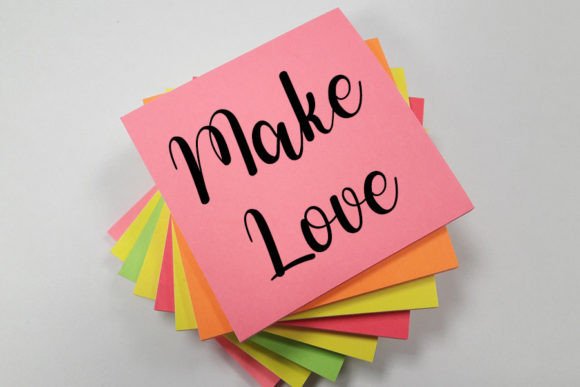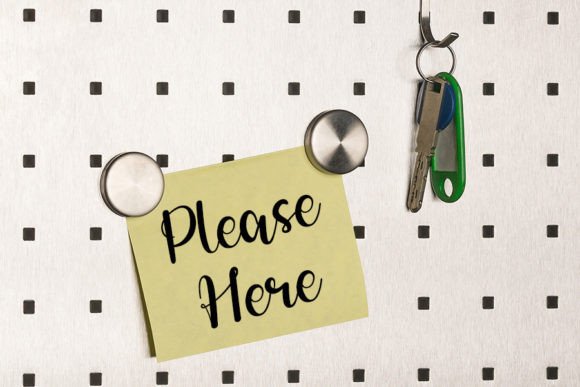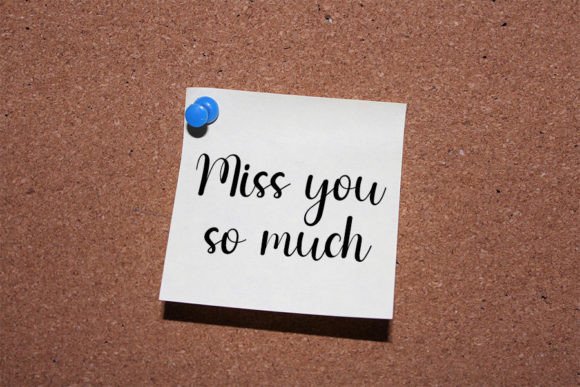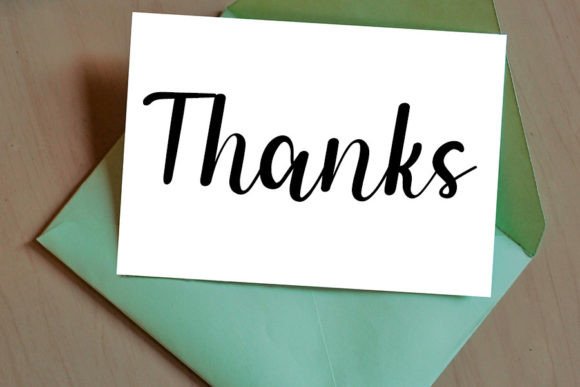
Introduction to Heart Painter Font
Have you ever stumbled upon a design element that instantly sparks your creativity and makes you want to bring your project to life? That’s exactly what happens when you lay eyes on the Heart Painter Font. This stunning handwritten font is a treasure trove of elegance and sophistication, making it the perfect addition to any creative project.
Whether you’re a seasoned designer or a beginner looking for a reliable design resource, the Heart Painter Font is a valuable asset to have in your toolkit. With its unique, high-quality design, it’s sure to elevate your projects and leave a lasting impression. Plus, with its transparent background, you can easily integrate it into any design without worrying about distractions.
Key Features of Heart Painter Font
- High-quality design resource ideal for creative projects, offering a unique and artistic touch.
- Comes with a transparent background, allowing for seamless integration into any design.
- Heart Painter Font is available in a range of sizes, from 12 to 72 points, with a high-resolution design (300 DPI) for crisp and clear display.
- This font features a beautiful, hand-painted style, perfect for adding a touch of elegance and sophistication to any design project.
- Perfect for use in digital and print design, including logos, branding, and creative projects, due to its high-quality design and versatility.
Honest Review: Heart Painter Font
As a designer, I’m always on the lookout for unique and high-quality design resources to elevate my creative projects. The Heart Painter Font is one such find that caught my attention with its whimsical and artistic vibe.
What works well about this font is its versatility and range of applications. It’s perfect for Valentine’s Day or romantic-themed projects, but it can also add a touch of whimsy to children’s book illustrations or even greeting cards.
- ✨ Unique and artistic design that stands out from the crowd
- ✨ Suitable for a wide range of creative projects, from children’s books to wedding invitations
- ⚠️ Limited character set, making it less suitable for extensive text-based projects
- ⚠️ Not ideal for projects requiring a transparent background, as the font has a bold, opaque design
Overall, I’m impressed with the Heart Painter Font’s unique design and versatility. While it may not be the best choice for every project, it’s an excellent resource to have in your design arsenal for those special occasions when you need something truly unique.
To get the most out of the Heart Painter Font, use it with a transparent background to create visually appealing designs. This font is perfect for creating custom graphics, invitations, and social media posts.
The Heart Painter Font is ideal for various creative projects, including:
- Wedding invitations and decorations
- Social media posts and graphics
- Custom greeting cards and gift tags
Q: Is the Heart Painter Font suitable for use in high-resolution designs?
Yes, the Heart Painter Font is designed to be highly legible, even at high resolutions. The font’s clear lines and well-spaced characters ensure that it remains readable and visually appealing, even when scaled up to large sizes or used in high-resolution designs.